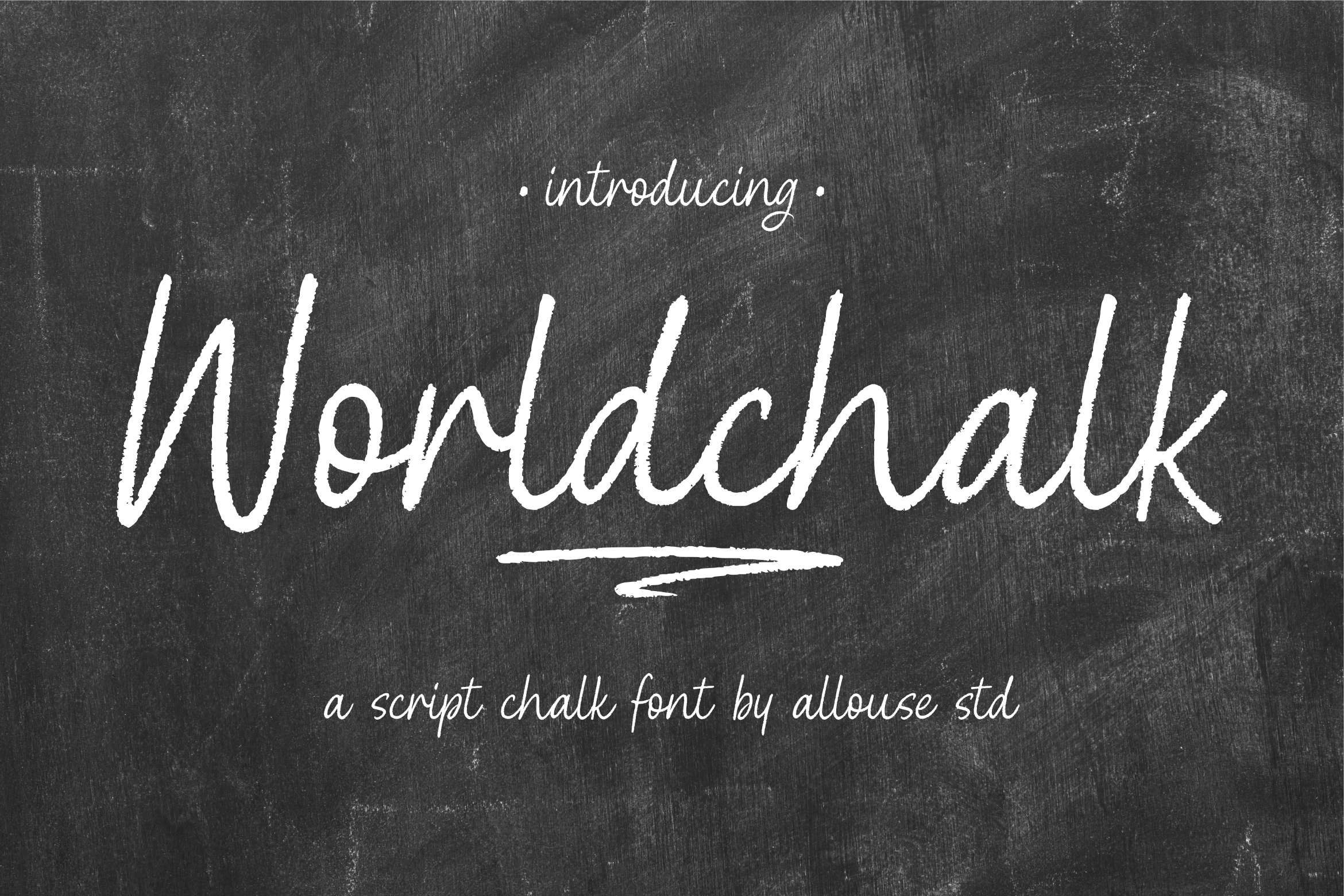
Worldchalk A Script Chalk Font
Proudly Presenting, Worldchalk A Script Chalk Font.
Worldchalk is perfect for any titles, logo, product packaging, branding project, megazine, social media, wedding, or just used to express words above the background.